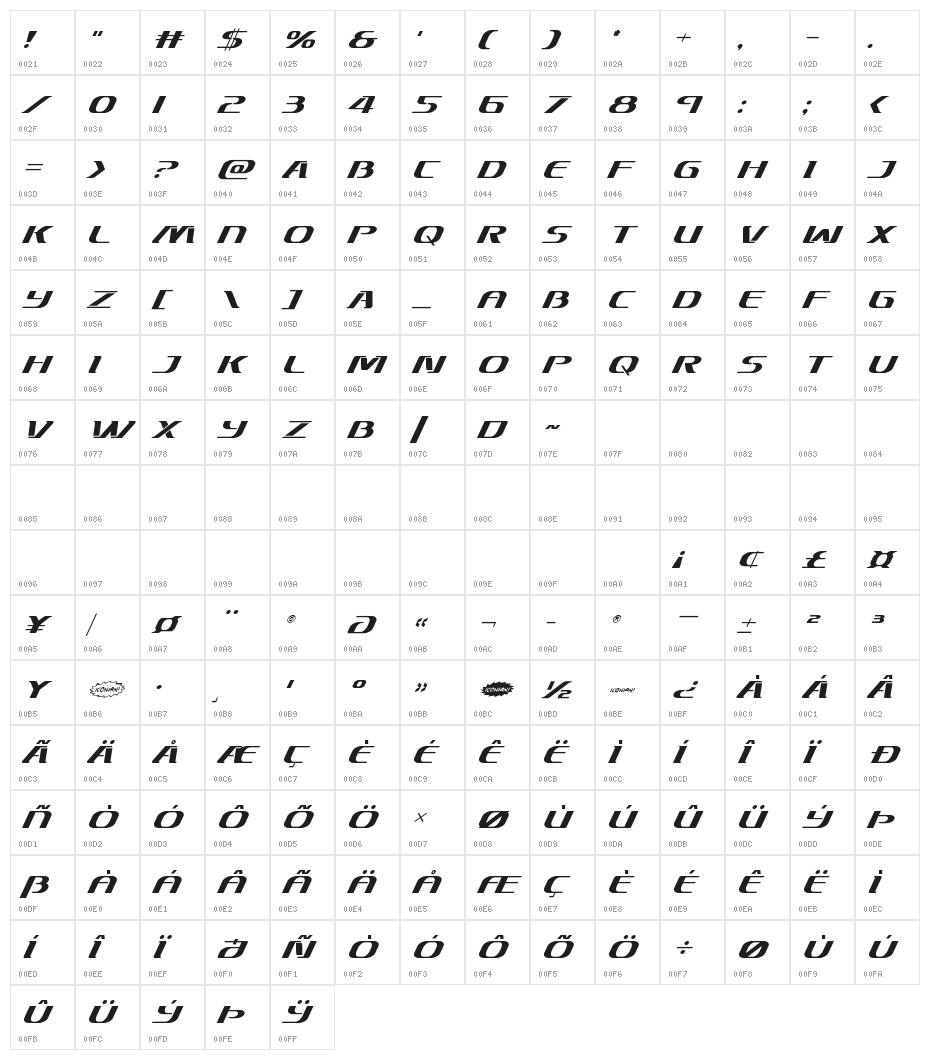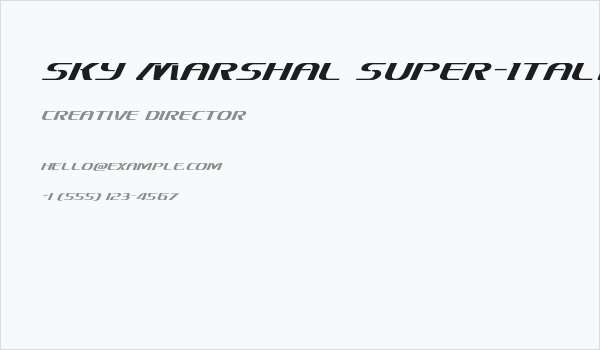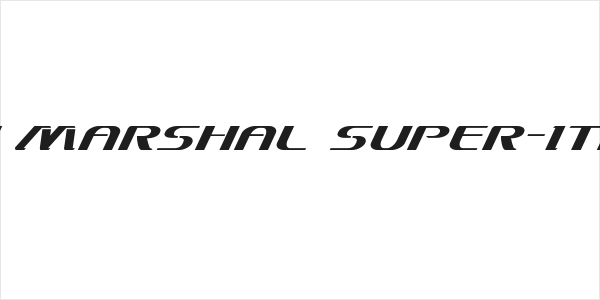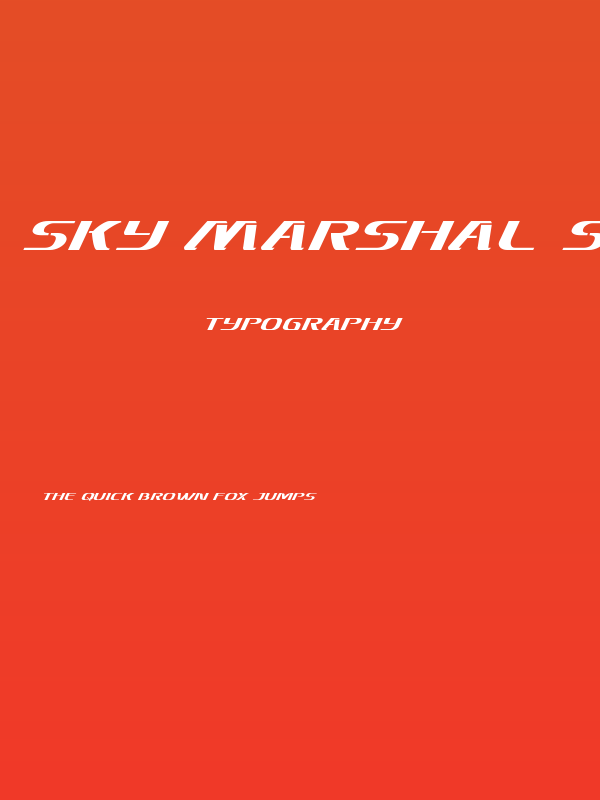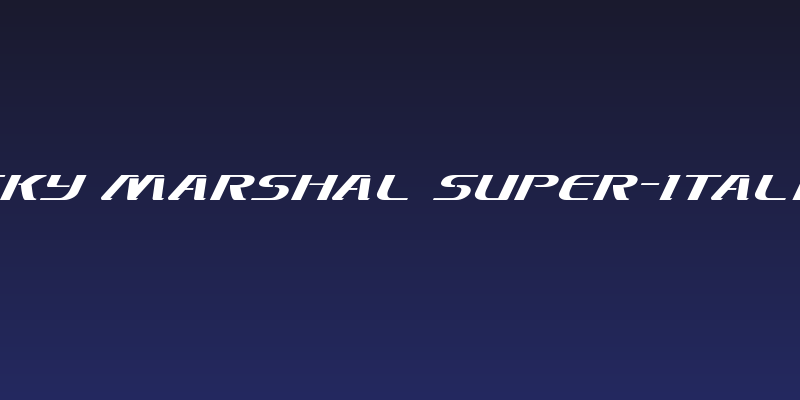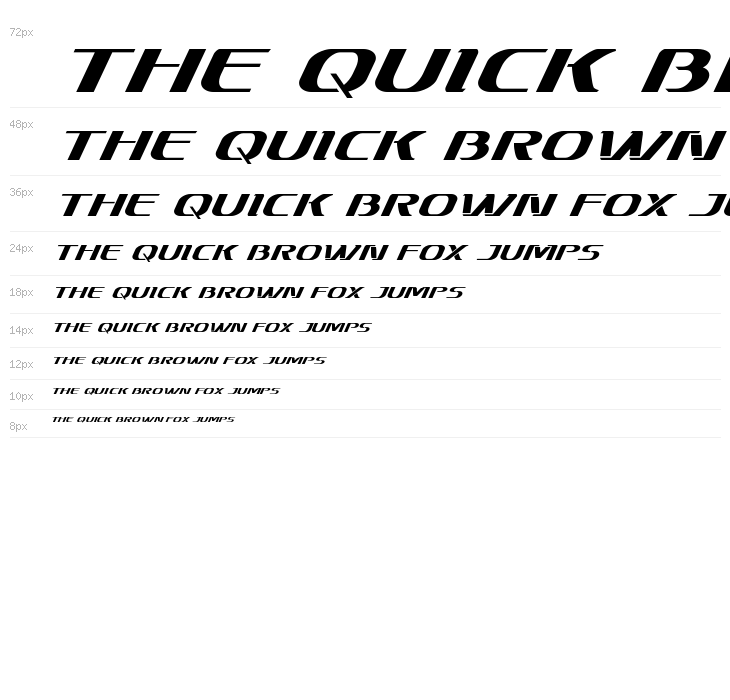
Sky Marshal Super-Italic Font
Sky Marshal Super-Italic Description
This font features a dynamic and futuristic design with a strong italic slant, giving it a sense of motion and speed. The characters are bold and angular, with sharp edges and a sleek, aerodynamic appearance. The uppercase and lowercase letters maintain a consistent style, emphasizing a modern and technological aesthetic. The numerals and special characters are designed to match the overall theme, making the font suitable for projects that require a forward-thinking and innovative look.